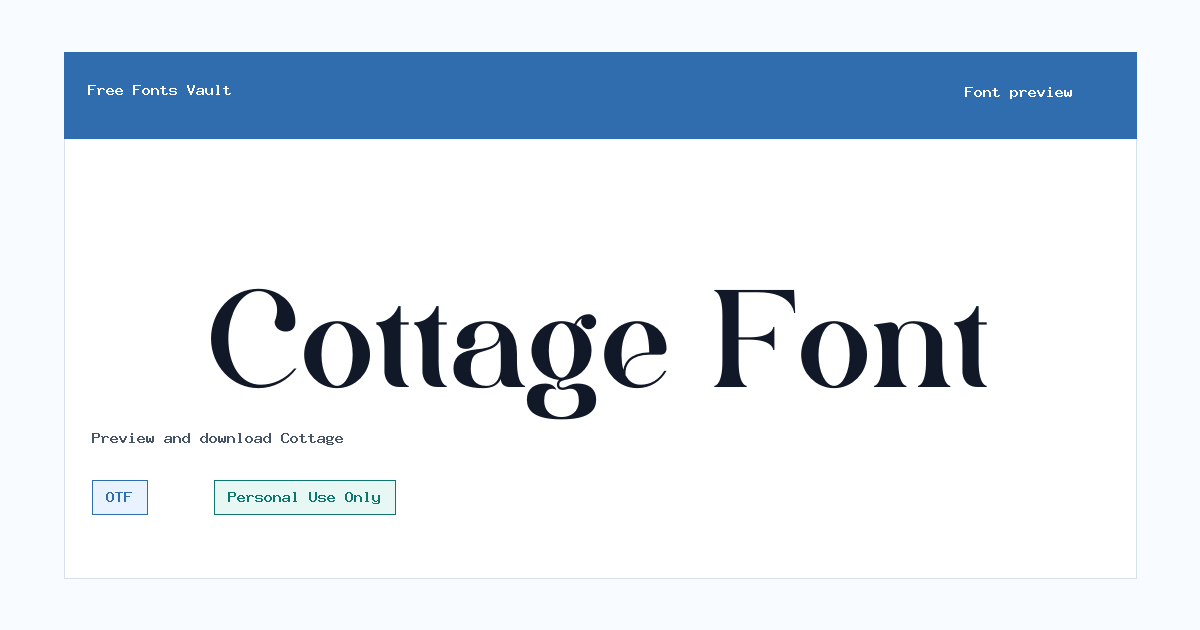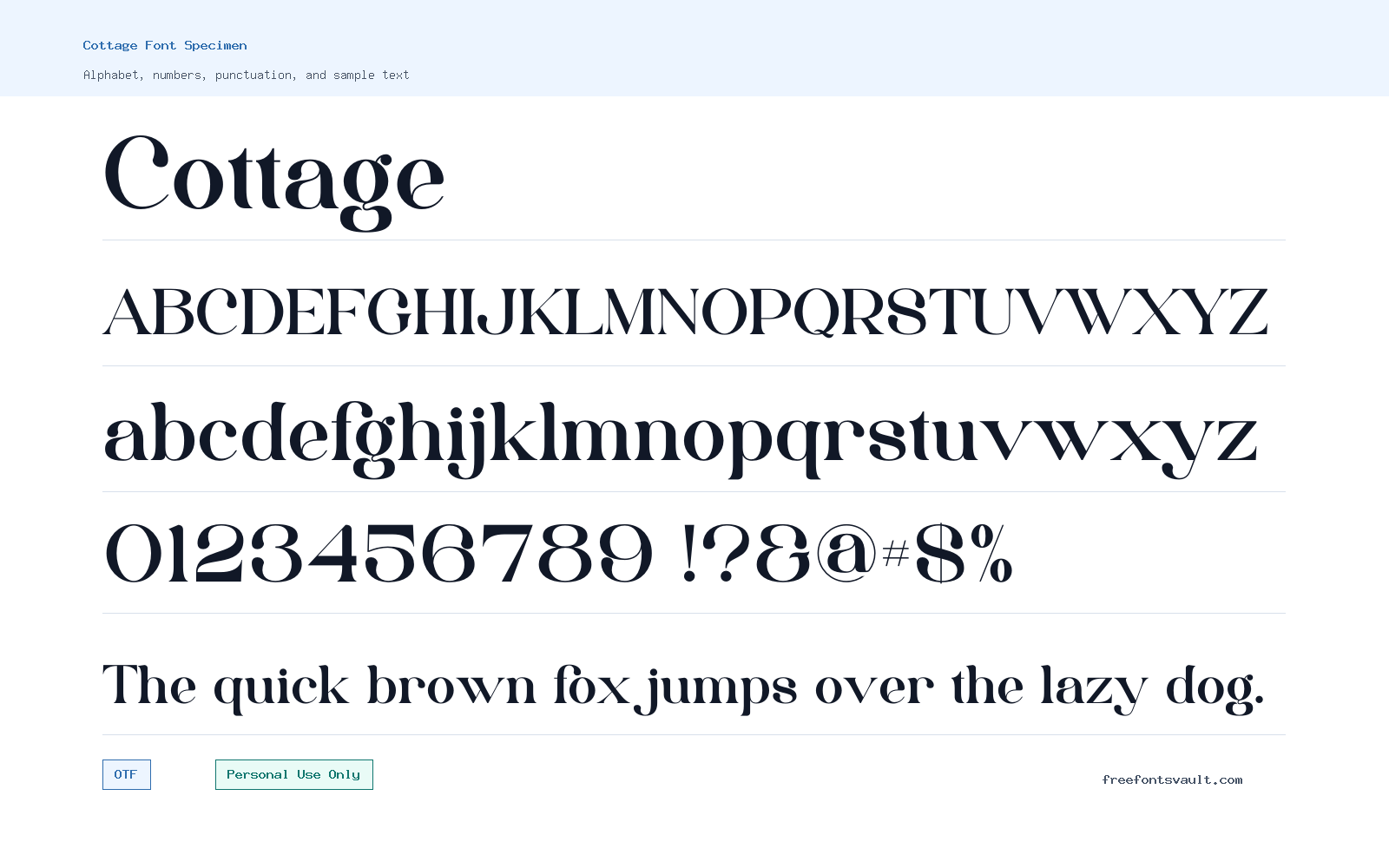
Cottage
Cottage font preview showing the family name
Cottage Font
Cottage font specimen showing alphabet, numbers, and sample text
Cottage font.
Cottage is a serif display font with a warm, decorative feel that works best when the text is meant to be noticed. It is a good choice for testing short titles, logo ideas, poster headings, packaging-style mockups, and social graphics where a softer serif voice fits the design.
About Cottage Font
Cottage has the kind of personality that suits display typography more than long reading text. Its serif style gives words a crafted, slightly nostalgic tone, making it useful for designs that need charm without becoming too formal. Try it first in names, short phrases, headers, labels, and quote layouts rather than body copy. Like many display fonts, Cottage will usually show its character most clearly at larger sizes, where the letter shapes have enough room to breathe.
For logo work, Cottage can help create a friendly boutique, handmade, lifestyle, stationery, café, or home-inspired look, but it should be tested carefully in the exact wordmark before use. Some decorative serif fonts look beautiful in one word and less balanced in another, depending on repeated letters, tight spacing, or unusual letter combinations. Use the preview to check uppercase, lowercase, numbers, punctuation, and the specific brand name you plan to design with. If you are building a poster or web mockup, pair Cottage with a plain sans serif for supporting text so the main title remains the focus.
• Serif display style that works best for short, prominent text such as titles, logo drafts, labels, and poster headings.
• Normal style with 400 weight, making it straightforward to test as a main display face without choosing between multiple weights.
• Useful for visual mockups where a warmer serif tone is needed, especially when paired with a clean, restrained supporting font.
• Logo concepts and wordmark drafts for personal, boutique, home, craft, stationery, café, or lifestyle-style projects.
• Posters, invitation-style graphics, social media titles, quote images, and short promotional headings.
• Packaging mockups, label designs, mood boards, and presentation visuals where the type should feel more personal than corporate.
• Web design mockups that need a distinctive hero heading while using a simpler font for menus, buttons, and paragraphs.
Use Cottage where the text is short and decorative impact matters. For best results, test it at the final size, adjust letter spacing if the design software allows it, and avoid long paragraphs. If the title feels too busy, pair it with a neutral sans serif or a quiet text serif for descriptions, captions, navigation, and body copy. In web mockups, reserve Cottage for hero headings or featured words rather than interface text, because display fonts can lose clarity at small sizes.
What kind of font is Cottage?
Cottage is presented as a serif font with a display-friendly character. It is best tested in headings, logos, posters, labels, and other short text settings.
Can I use Cottage for a logo?
Is Cottage good for body text?
Cottage is better suited to short display text. For paragraphs, pair it with a simpler, more readable font and keep Cottage for titles or accent words.
What should I pair with Cottage?
Try pairing Cottage with a clean sans serif for body text and navigation, or a quiet text serif if you want a softer editorial look. Keep the supporting font simple so Cottage remains the visual focus.